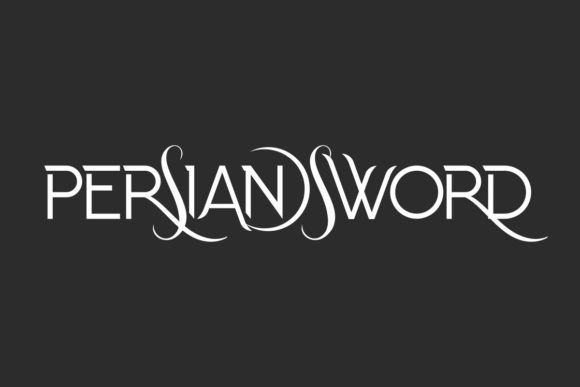
Dive into a world of enchantment with Persian Sword, a display font that emulates the elegance of a Persian prince and the valor of a courageous knight. Created by Vintype, this font is a visual masterpiece that will elevate your designs to new heights.
Unleash your creativity with Persian Sword, a font that captivates and enchants. Its elegant curves and striking details evoke a sense of wonder, making it the perfect choice for product packaging, branding projects, magazine covers, and social media posts. Whether you're using it for personal or commercial projects, Persian Sword promises to make a lasting impression.
Immerse yourself in the beauty of Persian Sword and discover a font that transcends the ordinary. Its versatility extends beyond mere aesthetics, as it effortlessly blends with diverse backgrounds, ensuring your words stand out amidst any visual clutter. Let Persian Sword be your artistic companion, guiding you to create designs that resonate with your audience and leave them spellbound.
When you choose Persian Sword, you're not just downloading a font—you're embarking on a creative adventure. Its flowing lines invite you to craft visually captivating designs that tell mesmerizing stories. Whether it's a wedding invitation, a magazine spread, or a social media post, Persian Sword empowers you to create stunning visuals that capture hearts and imaginations.
Embrace the magic of Persian Sword and witness the transformation of your designs. Prepare to be swept away by its captivating aesthetics, unparalleled versatility, and the boundless creative possibilities it unlocks. Let Persian Sword ignite your passion and fuel your artistic vision, propelling you to new heights of design excellence.